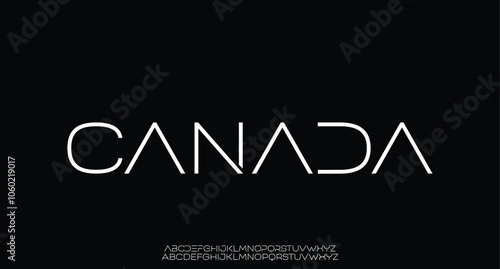
Modern techno font, futuristic line type of english alphabet letters and numbers. Minimal tech typeface vector typography. Future technology digital abc characters font, modern double line symbols